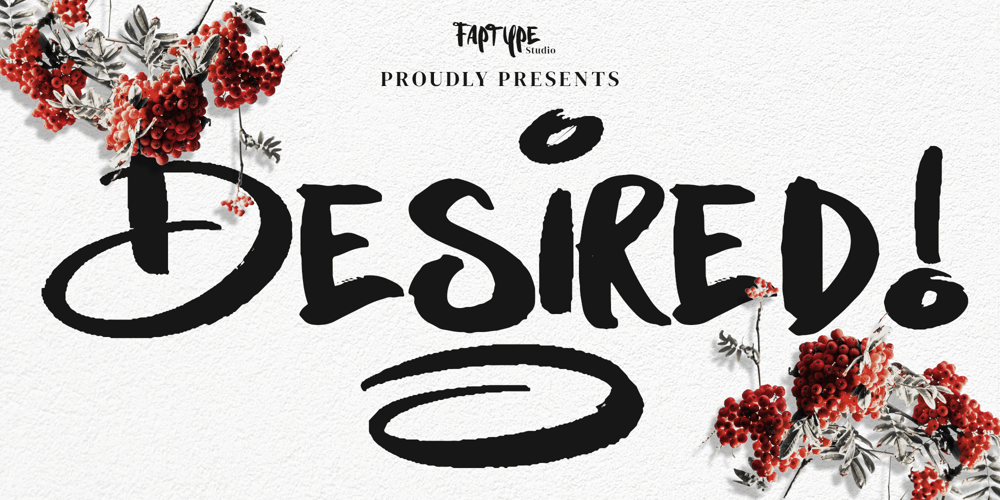
Desired Brush
Desired Brush font
Desired Brush Font Family was designed by Ferry Ardana Putra and published by Ferry Ardana Putra. Desired Brush contains 2 styles and family package options. Introducing “Desire,” our latest handwritten brush font designed to elevate your creative projects with a touch of elegance and natural charm. This font is crafted with meticulous detail to capture the authenticity of a hand-painted brushstroke, making it the perfect choice for those seeking a blend of sophistication and a genuine, artistic feel.”Desire” is more than just a font; it’s a work of art. Each letter is meticulously crafted to emulate the nuanced strokes of a natural brush, providing a detailed and authentic feel. This attention to detail ensures that your text exudes a genuine handcrafted charm, adding a the best touch to your designs.To enhance the expressive nature of your text, “Desire” comes adorned with a collection of exquisite ornaments and swashes. These decorative elements allow you to embellish your text, creating a unique and stylish flair. Whether you’re designing invitations, posters, or branding materials, these additional features provide a versatile range of creative possibilities.Communication knows no bounds, and neither does “Desire.” With comprehensive multilanguage support, this font ensures that your message can resonate across diverse cultures and linguistic landscapes. Whether your audience speaks English, Spanish, French, or beyond, “Desire” stands as a versatile and inclusive choice for your design needs.”Desire,” our exquisite handwritten brush font, is the perfect choice for a myriad of creative applications. Here’s how you can make the most of its unique features: Invitations and Stationery, Branding and Logos, Social Media Graphics, Packaging Design, Quotes and Typography Art, Greeting Cards Website, Headers and Banners, Apparel Design, Book Covers and Editorial Design and Artistic Projects.”Desire” is not just a font; it’s a versatile tool that empowers your creativity across a spectrum of design endeavors. With its natural brush feels, ornamental swashes, and multilanguage support, “Desire” is destined to enhance and enrich your creative projects.Desire features: A full set of upper & lowercase characters Numbers & punctuation Multilingual language support PUA Encoded Characters Dozens of Swashes OpenType Features Up to +302 Total Glyphs Up to 68 Total Ornament addons